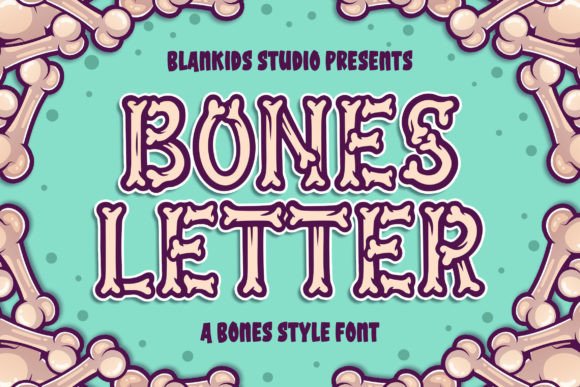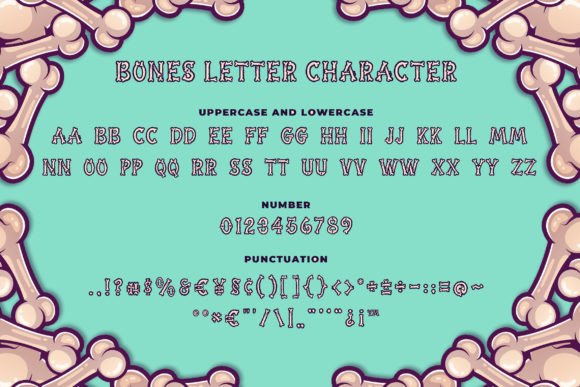
Bones Letter Font
Bones Letter is a fun and spooky display font. Full of bones, this typeface will be perfect for all your Halloween crafts and it will instantly add a slightly horror vibe to your designs.